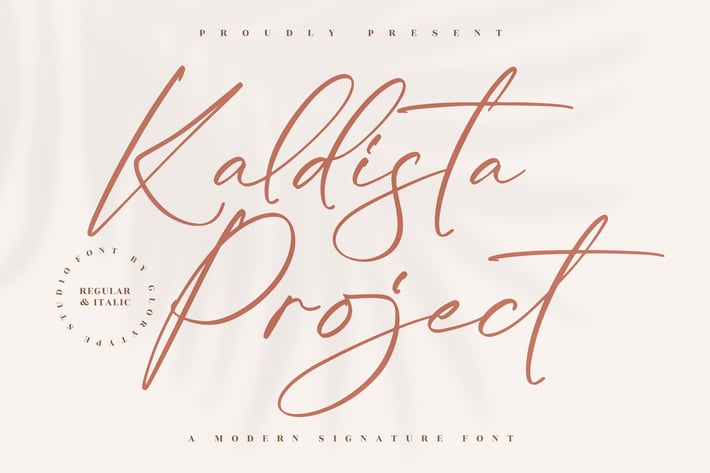
Kaldista Project Signature Font
Kaldista Project is a stylish modern signature font with high-end aesthetic and a clean, flowing script. With its elegant curves and gentle ligatures, this font is ideal for branding, social media content, wedding invitations, and luxury product packaging.
Kaldista Project offers multilingual support and OpenType features for a more expressive design experience.
+ Regular & Italic versions
+ Multilingual support
+ Smooth ligatures and alternates
Perfect for:
+ Fashion Branding
+ Instagram Quotes
+ Wedding Invitations
+ Photography Logos
+ Editorial Headers